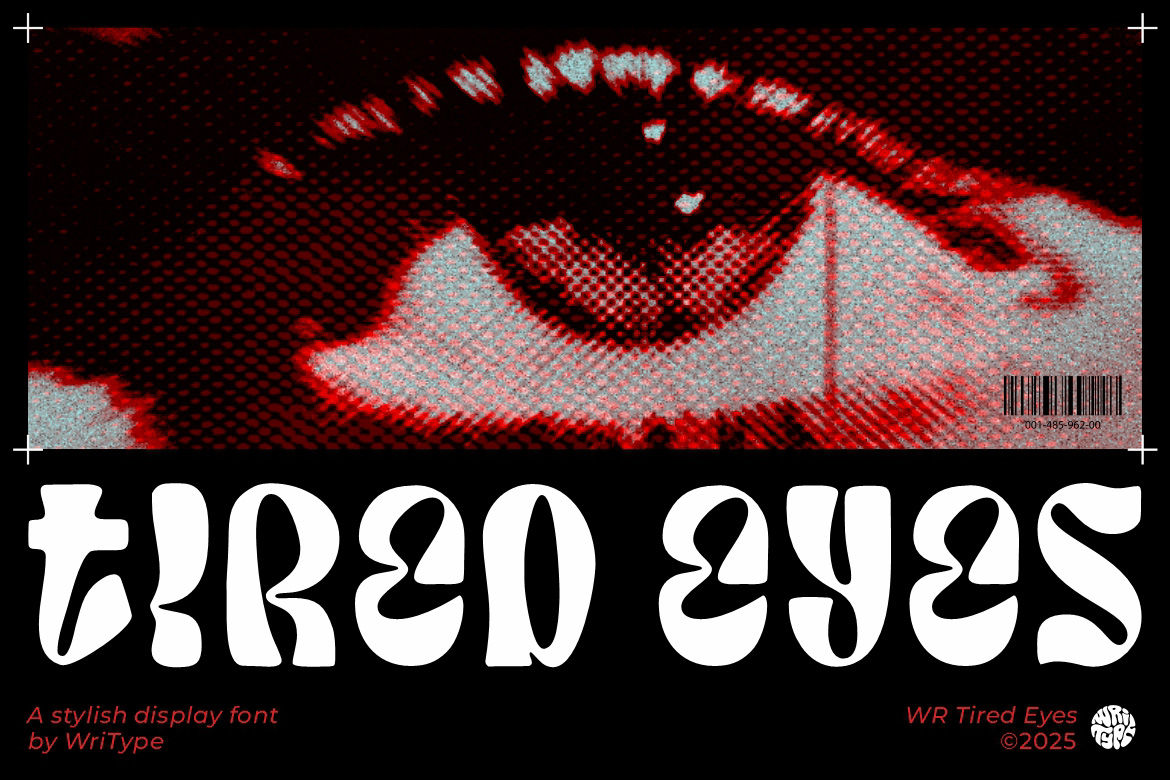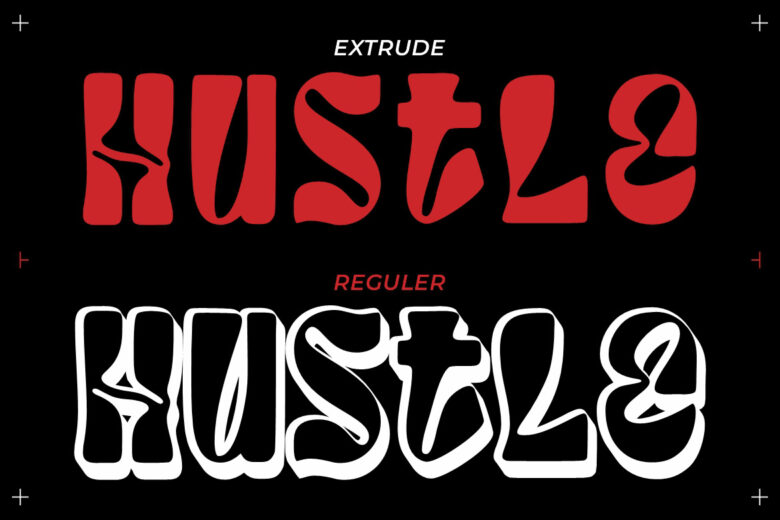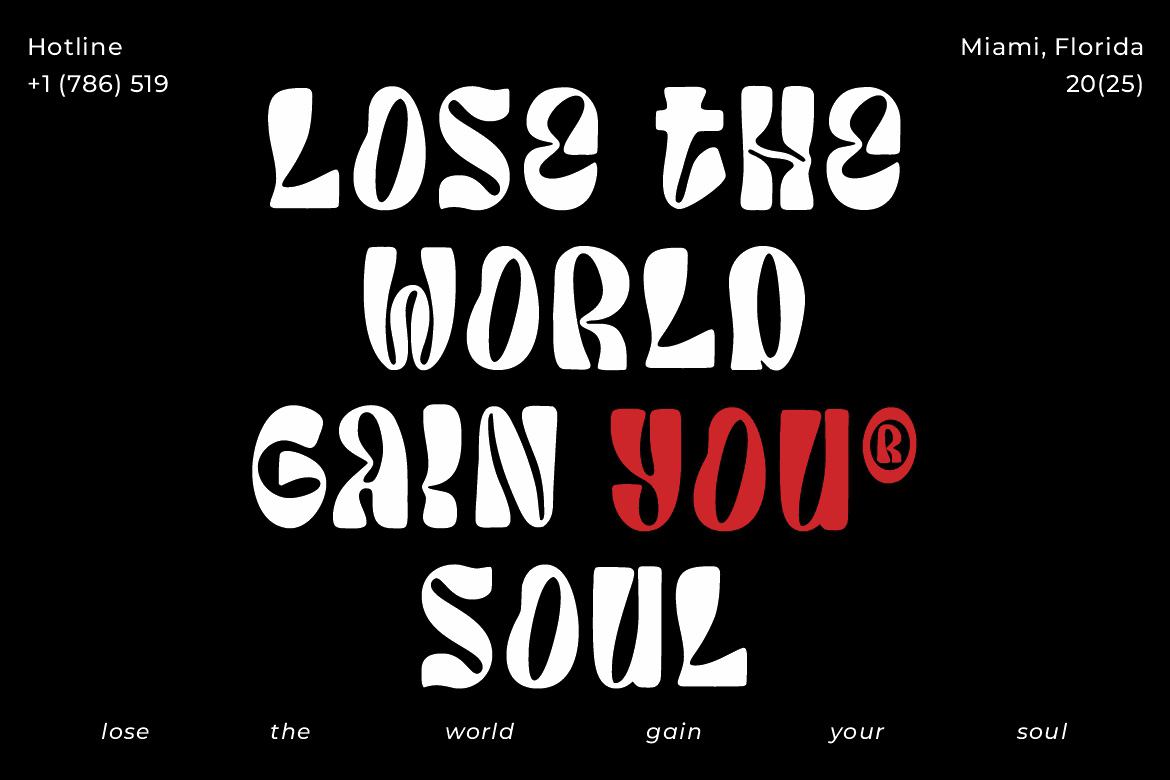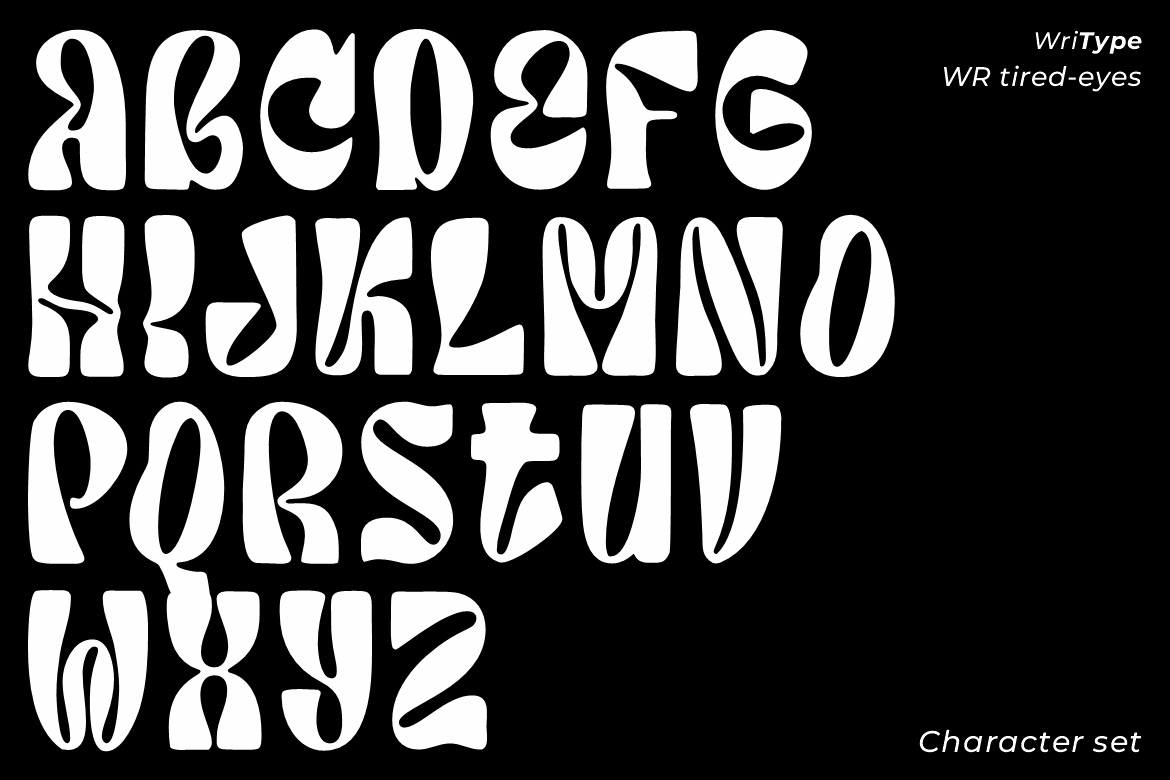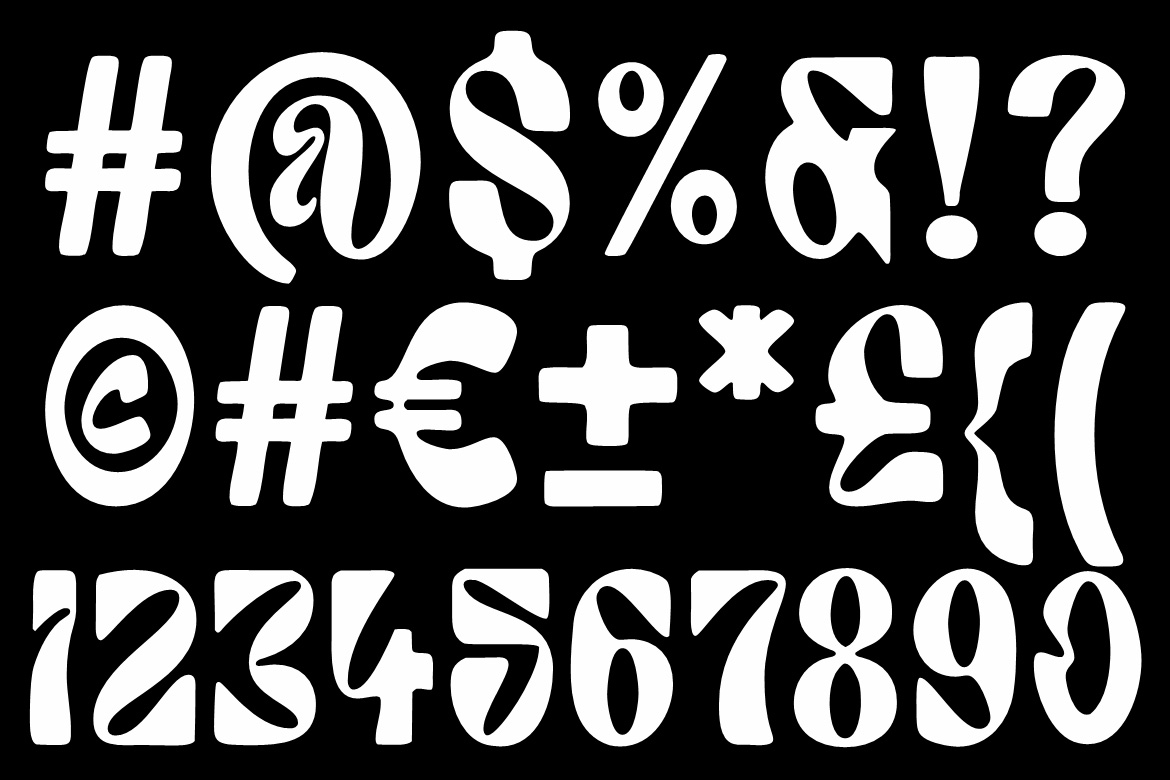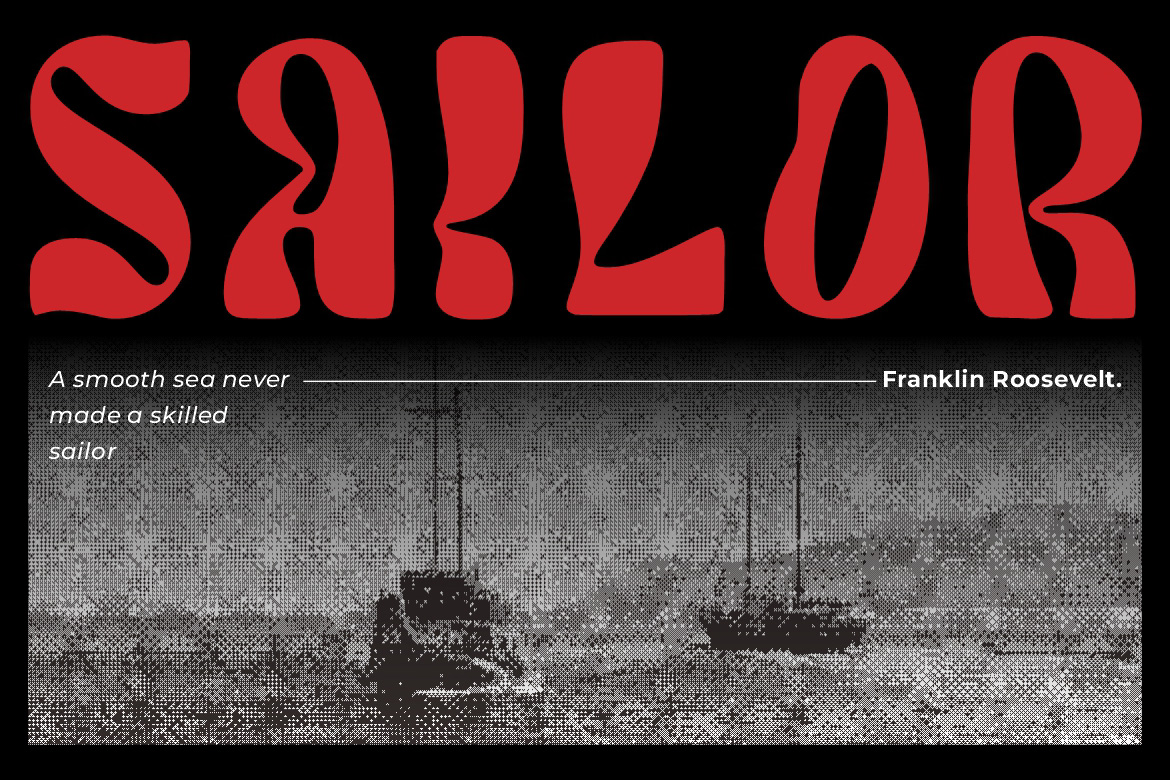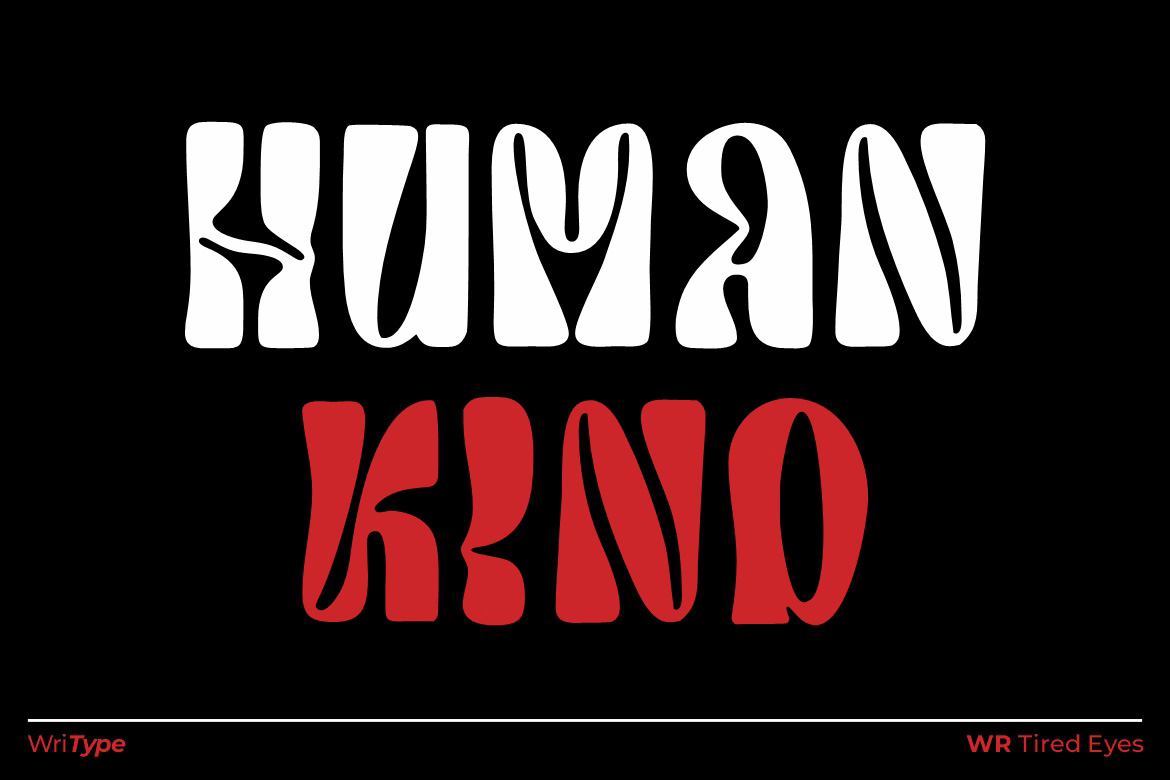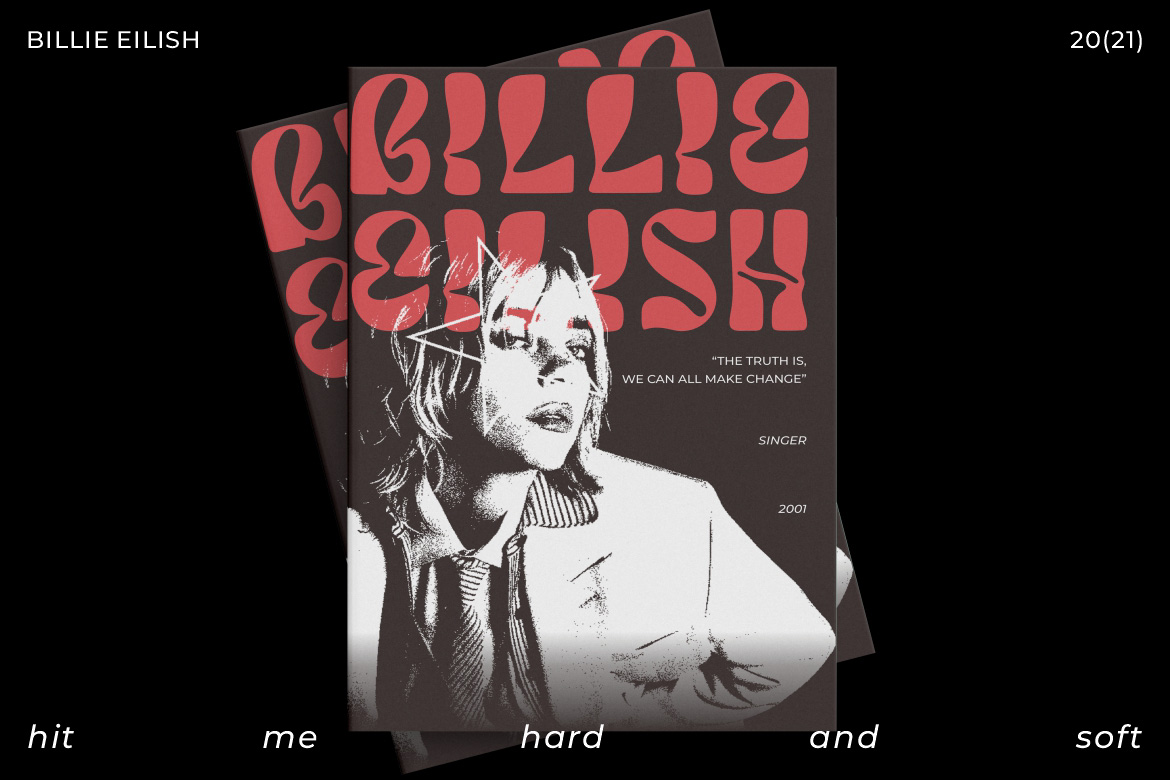
WR Tired Eyes is a bold, hand-drawn typeface inspired by the swirling rhythm of psychedelic art. With warped lines and expressive curves, it evokes a sense of movement and mood. Available in Regular and Extrude styles, it’s perfect for artworks that blur the line between reality and imagination—posters, music covers, zines, and more. Let your typography drift and dream.